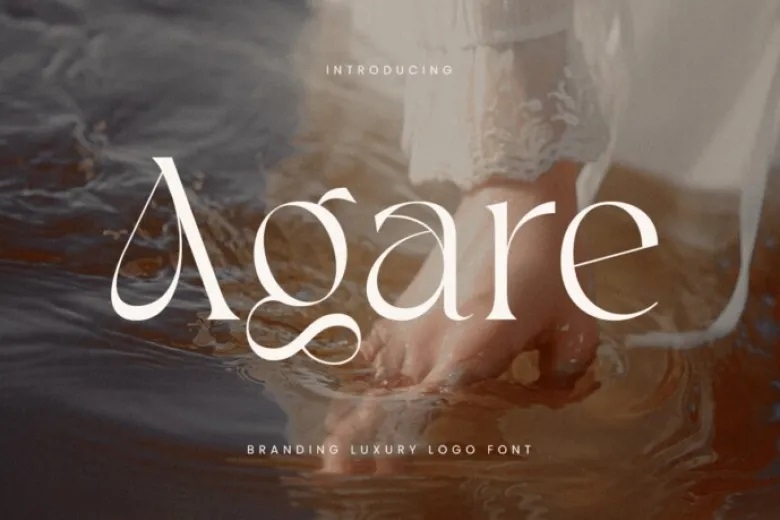
Agare Font
Agare Font is a font classified as Luxury Font to give that extra flavor into your branding projects. This classic font suits modern brands, particularly those in the luxury niches as a typeface that helps create a bold image. In whatever you require from logo design to packaging, or even mere promotional material, Agare lays special emphasis on the message to be conveyed all the while maintaining professionalism and sophistication.
Smooth arcs and exquisite fine details drew me in and intrinsic sensuality separates Agare from conventional fonts. This is the best one for those applications that would require a superior look and feel. Whether it’s fashion brands or luxurious products, Agare becomes flexible and gives your brand that extra confidence it deserves.
For enhanced flexibility, Agare was designed functional not just visually appealing. This font has many additional symbols that are positioned differently, as well as multi-language support, which is more than enough to satisfy the requirements of any design task and, in addition, give it the companion creativity.
Agare Serif Font